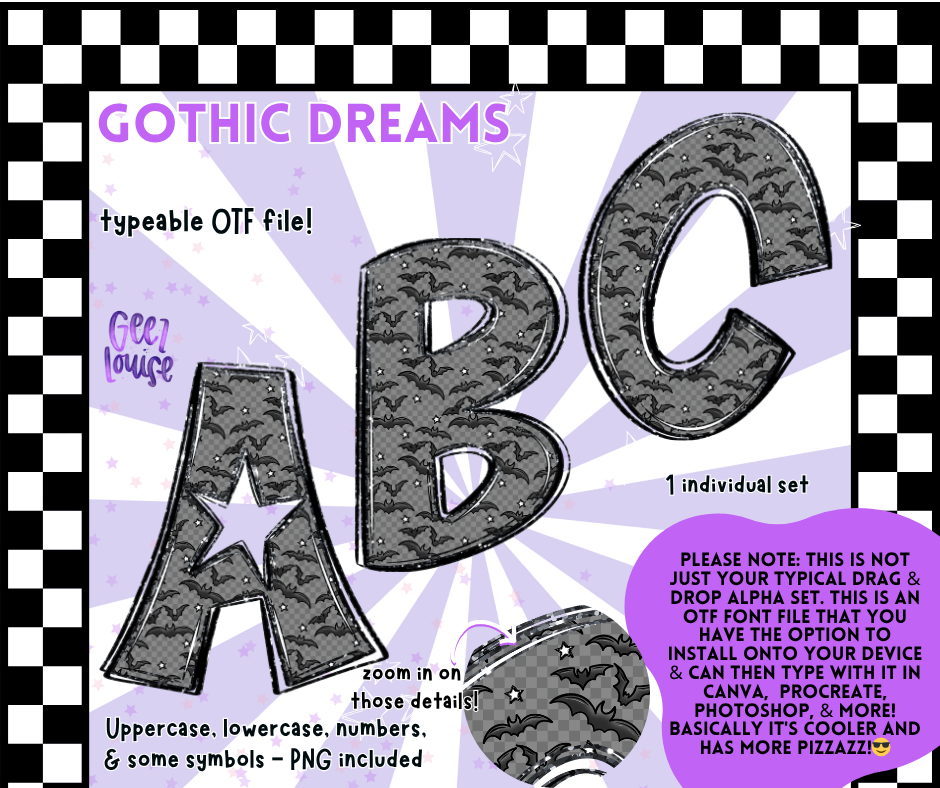
Gothic Dreams Alpha – Bat Pattern OTF Font & PNG Set
🦇✨ Give your designs a dark and dreamy edge!
The Gothic Dreams Alpha features a textured gray-and-black design with tiny bat silhouettes for that perfect gothic touch.
This set is both typeable OTF font and a PNG pack, letting you type or drag-and-drop with ease. Ideal for Halloween graphics, gothic apparel, spooky branding, and dark aesthetic projects.